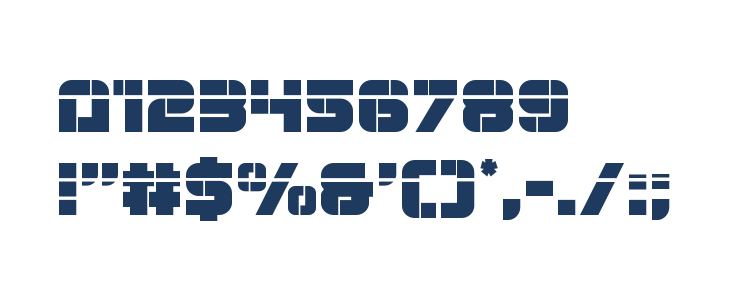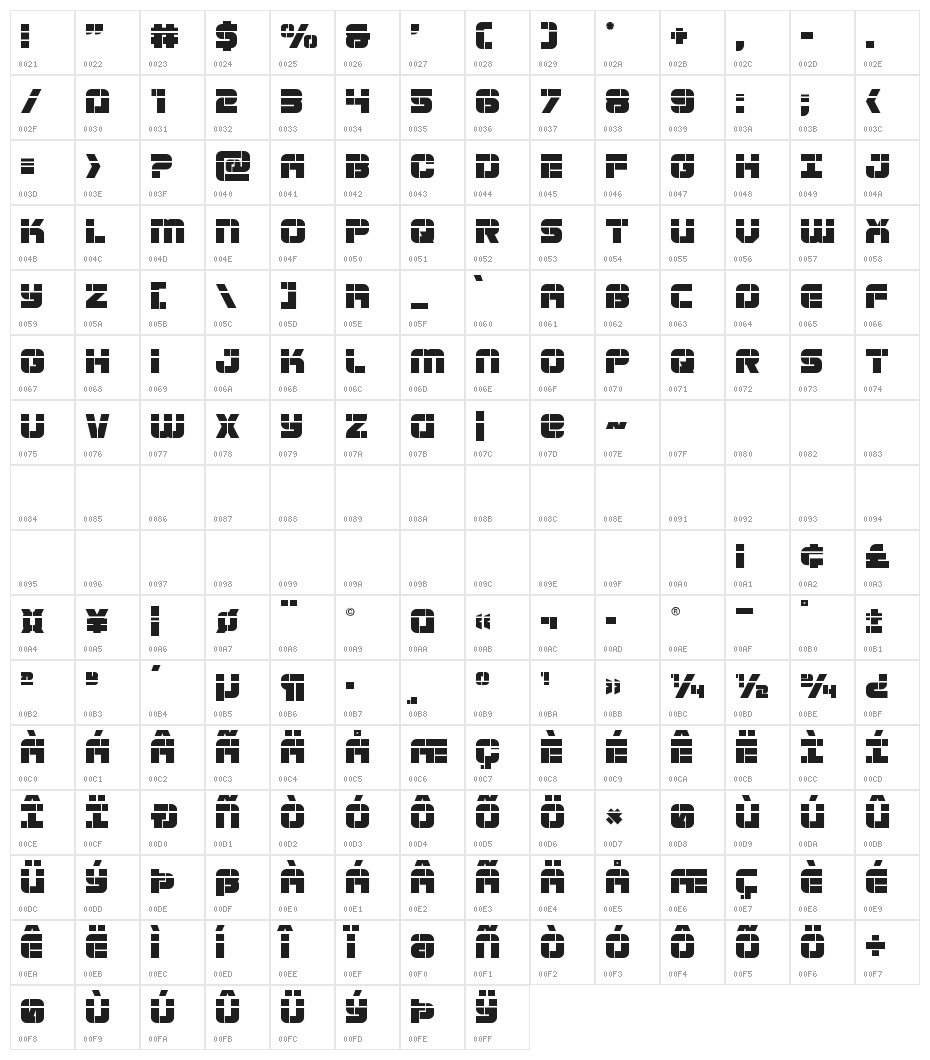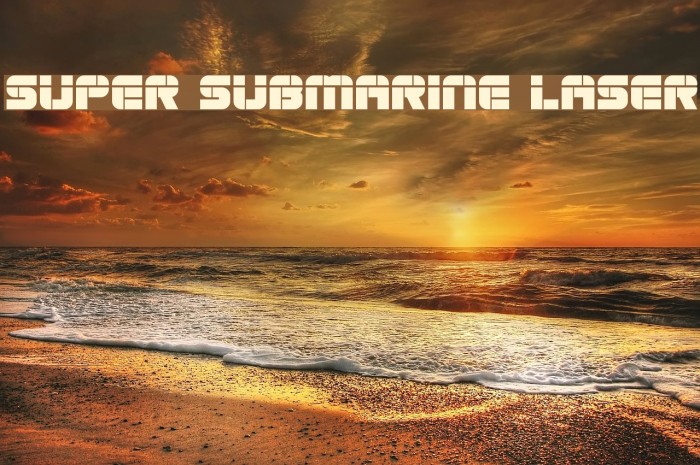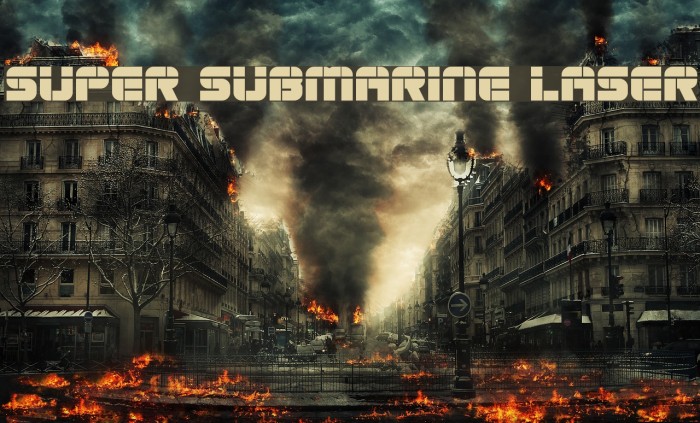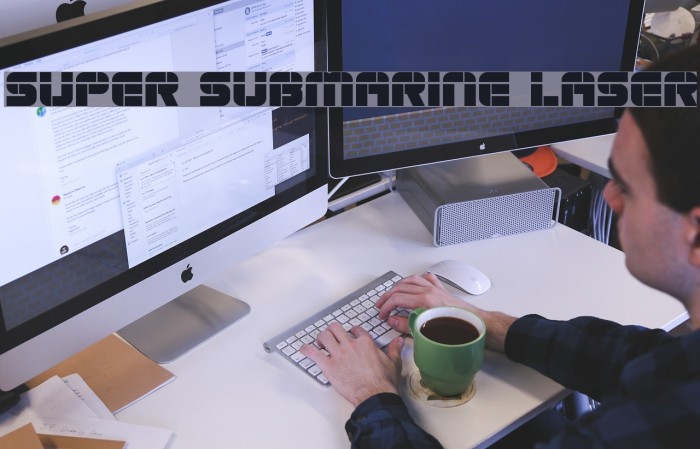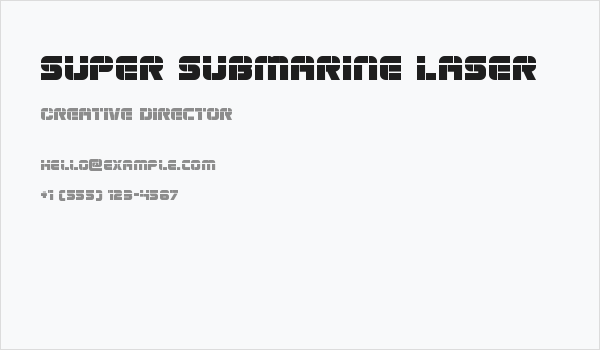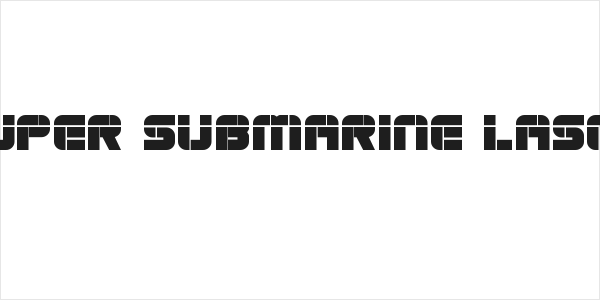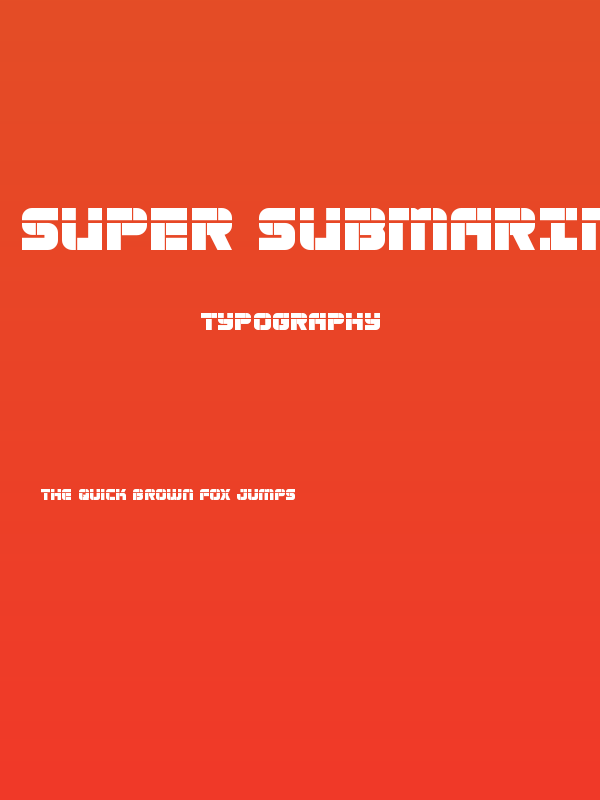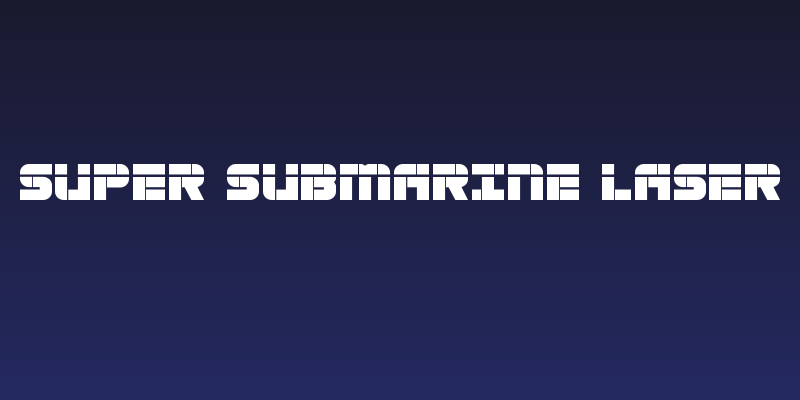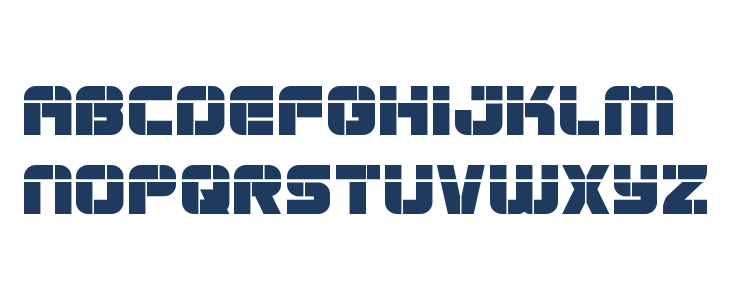
Super Submarine Laser Font
Super Submarine Laser Description
This font features a bold, geometric design with a futuristic and industrial feel. The characters are constructed with solid, block-like shapes that are segmented, giving a stencil-like appearance. The uppercase and lowercase letters share a similar structure, maintaining uniformity across the typeface. The numbers and special characters are designed to match the bold and segmented style, ensuring consistency throughout. This font's unique design makes it stand out, suitable for projects that require a strong and modern aesthetic.
| Overall Style | Futuristic, Industrial |
| Proposed Projects | Ideal for branding, posters, video game graphics, and sci-fi themed projects. |